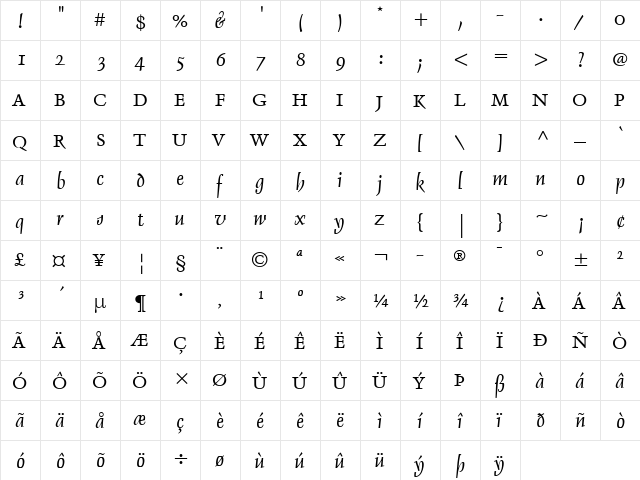
Delphin LT I Regular
Design Context for Delphin LT I Typeface
Delphin LT I offers clean, dependable letterforms without strong stylistic allegiance, making it a practical choice for designers who need flexibility. The delicate stroke weight brings airiness and refinement to layouts.